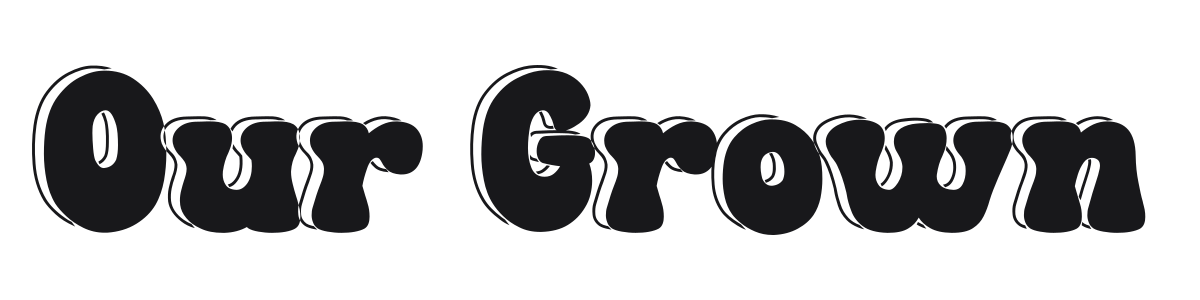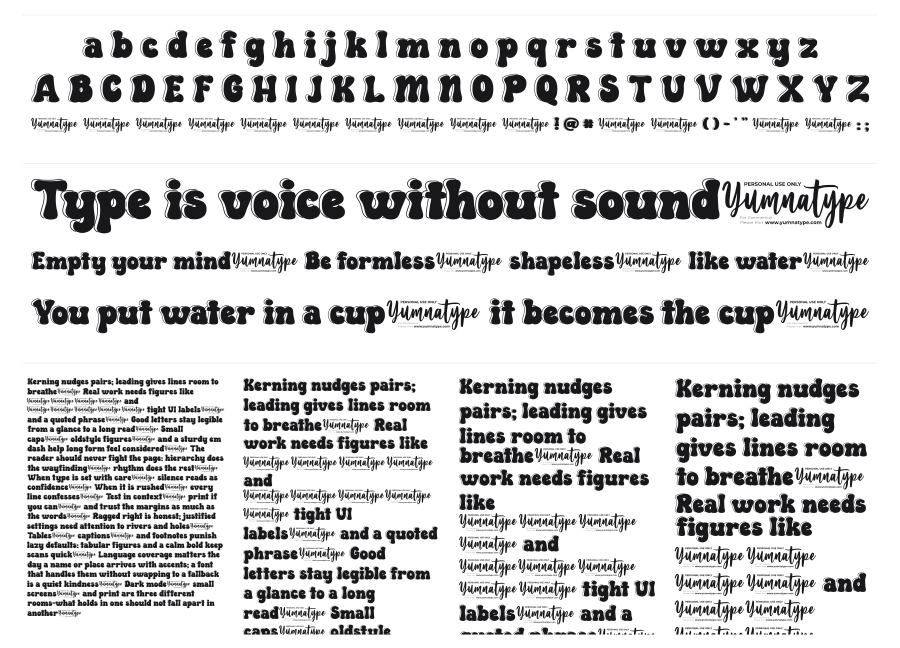
Our Grown
Our Grown is a bold groovy serif with a chunky inline shadow effect that channels the 1970s at full volume. Wide, rounded characters with swelling curves and layered outlines give it an inflated, almost cartoon-like presence. It works best large, where the retro shadow play can do its job.